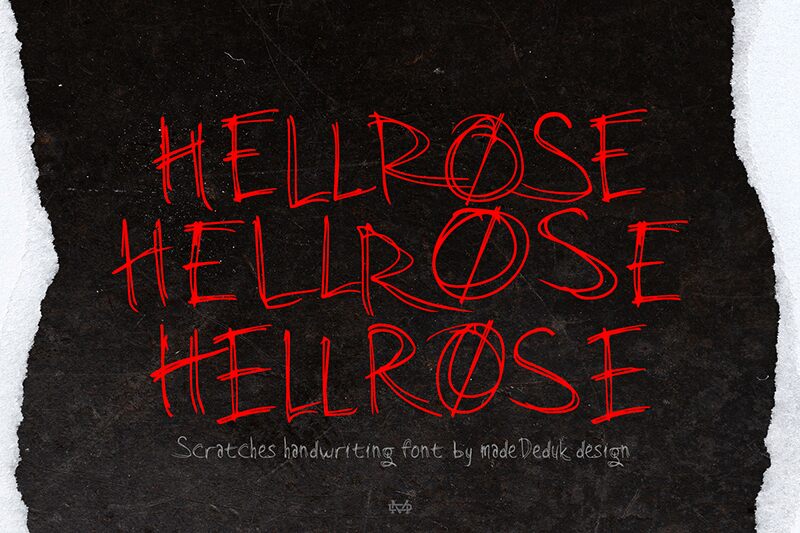
Hellrose Demo
Hellrose font by madeDeduk is a free trash script font. Its wiry, splintered strokes feel scratched in with a dry pen, balancing jittery energy with readable spacing. Letters lean and snag, leaving inky burrs at the ends—just enough chaos to feel dangerous without turning into noise. It shines when you want a hand-scrawled edge that still holds together at headline sizes.
Using Hellrose, you can drive mood on horror posters, thriller book covers, metal or punk logos, Halloween branding, gritty zines, streetwear tags, and game titles. This free font loves big type and high contrast images; pair it with a clean, condensed sans for body copy, or add a touch of extra tracking to heighten the scratchy tension.